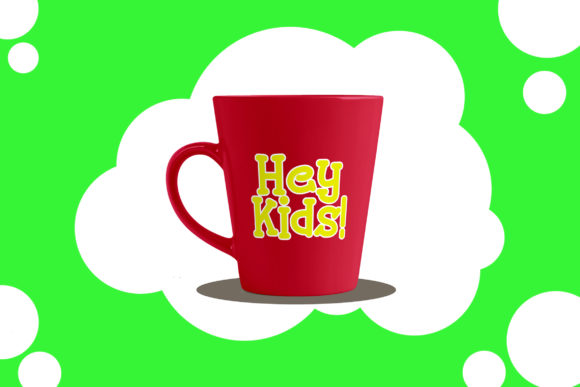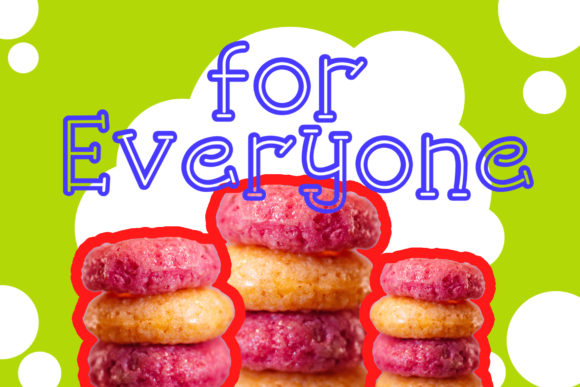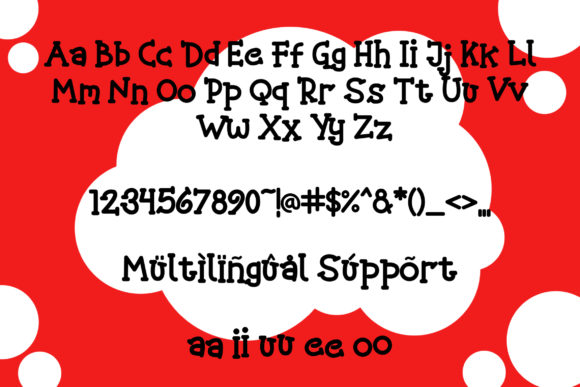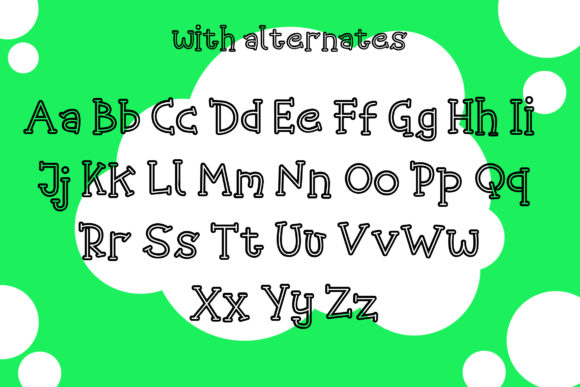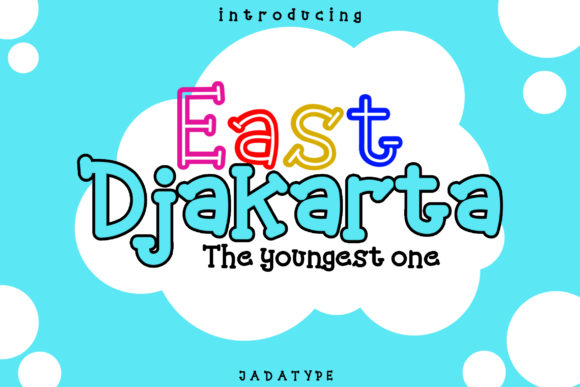
Introducing East Djakarta: The Fun and Playful Display Font
Are you looking for a font that can add a dynamic and childlike vibe to your design projects? Look no further than East Djakarta, a fun and playful display font that’s sure to capture the attention of your audience. In this article, we’ll take a closer look at East Djakarta, its features, and how you can use it to elevate your designs.
What is East Djakarta?
East Djakarta is a display font designed to make a statement. Its attractive look and playful feel make it perfect for designs that require a youthful and energetic touch. Whether you’re working on a project for kids or want to add some whimsy to your brand’s identity, East Djakarta is an excellent choice.
Key Features of East Djakarta
So, what makes East Djakarta stand out from other fonts? Here are some of its key features:
• Fun and playful design: East Djakarta’s design is sure to put a smile on your face. Its irregular shapes and lines give it a carefree and spontaneous feel that’s perfect for designs that need a playful touch.
• Attractive look: The font’s unique design elements make it visually appealing and eye-catching. Use it to draw attention to headings, titles, or any other design element you want to highlight.
• Dynamic vibe: East Djakarta’s playful feel makes it perfect for designs that require a dynamic and energetic vibe. Use it to add some excitement to your designs and capture your audience’s attention.
• Childlike charm: The font’s playful design gives it a childlike charm that’s perfect for designs aimed at kids or those that require a youthful touch.
How to Use East Djakarta
East Djakarta is a versatile font that can be used in a variety of design projects. Here are some ideas to get you started:
• Kids’ designs: East Djakarta is perfect for designs aimed at kids, such as children’s books, educational materials, or kids’ websites.
• Playful branding: Add a playful touch to your brand’s identity with East Djakarta. Use it for your logo, website, or social media graphics.
• Party invitations: Make your party invitations stand out with East Djakarta. Its playful design is sure to set the tone for a fun and exciting event.
• Digital graphics: Use East Djakarta to add a dynamic and playful touch to your digital graphics, such as Facebook posts, Instagram stories, or YouTube thumbnails.
Tips for Using East Djakarta Effectively
Here are some tips to help you use East Djakarta effectively in your designs:
• Use it sparingly: East Djakarta is a bold font, so use it sparingly to avoid overwhelming your design. Use it for headings or titles, and pair it with a simpler font for body text.
• Experiment with colors: East Djakarta looks great in bright and bold colors. Experiment with different color combinations to find the one that works best for your design.
• Pair it with simple fonts: Pair East Djakarta with simple fonts, such as Arial or Helvetica, to create a balanced design.
East Djakarta is a fun and playful display font that’s perfect for designs that require a dynamic and childlike vibe. Its attractive look and playful feel make it a great choice for a variety of design projects, from kids’ designs to playful branding. With its versatility and unique design elements, East Djakarta is sure to become a favorite in your font collection.